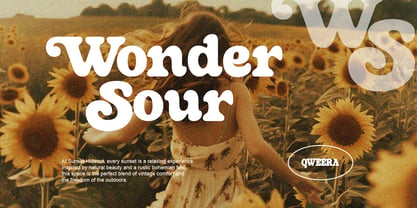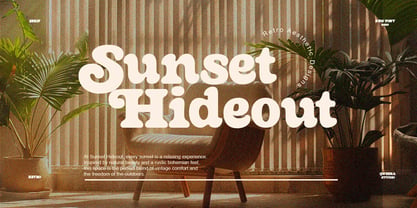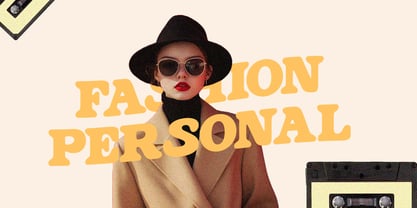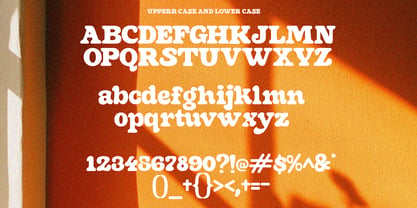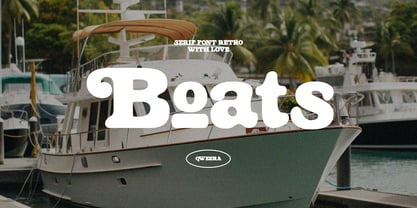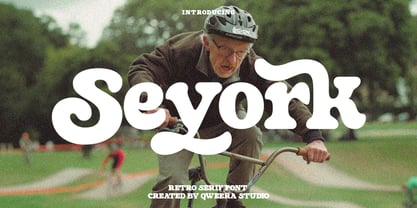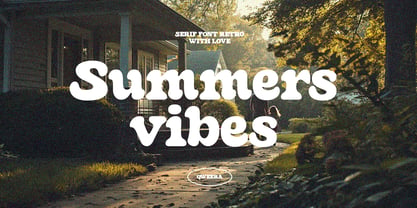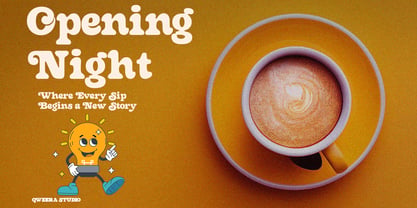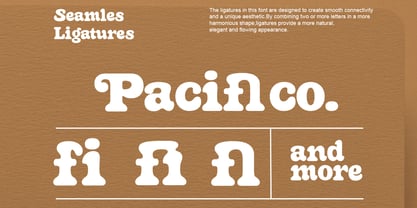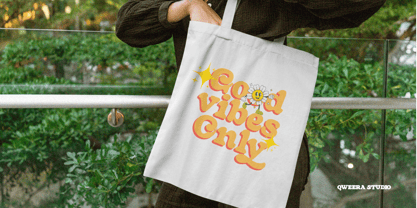
Seyork
by Qweera Studio
The Seyork Font Family was designed by Idhham Cholid Rikzano Yahya and published by Qweera Studio. Seyork contains 2 styles and family package options. More about this family
Seyork – Modern Retro Serif Font for Bold and Stylish Designs
Seyork is more than just a font—it’s a bold fusion of modern design and retro charm, crafted to bring a unique and stylish edge to your creative projects. With its regular and italic versions, Seyork offers versatility and sophistication, making it the perfect choice for branding, logo design, packaging, posters, and more. Whether you’re crafting a vintage-inspired logo or designing a standout poster, this font ensures your work radiates confidence and retro flair.
Where Modern Design Meets Retro Elegance
Seyork stands out with its clean lines, stylish alternates, and ligatures, offering endless creative possibilities. Its versatility makes it ideal for projects that demand a bold, retro-inspired look, from corporate branding to creative packaging and posters. This font isn’t just a tool—it’s a statement of creativity and innovation.
Key Features
• Modern Retro Serif Design – Perfect for branding, logo design, packaging, and posters.
• Regular & Italic Versions – Versatile options for a variety of design needs.
• Stylish Alternates & Ligatures – Add a unique and creative touch to your designs.
• Multilingual Support – Compatible with over 20 languages, including English, French, German, Spanish, and more.
Elevate Your Designs with Seyork Seyork isn’t just a font—it’s a tool to transform your creative projects into bold, retro-inspired masterpieces. Whether you’re designing for print, digital, or branding, this font ensures your work stands out with confidence and style.
Designers: Idhham Cholid Rikzano Yahya
Foundry: Qweera Studio